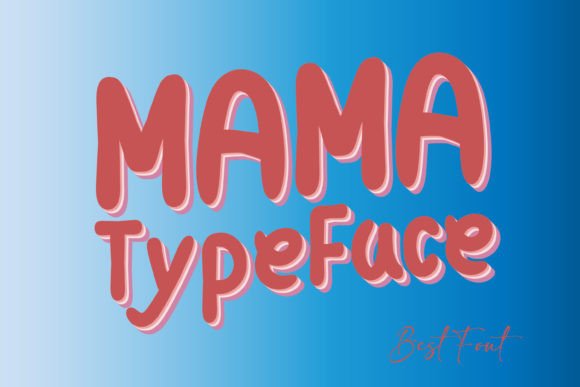
Mama Typeface Font: Add a Touch of Whimsy to Your Crafty Ideas
Mama Typeface Font is a fun and quirky handwritten font that can add a touch of personality to your crafty ideas. In this article, we’ll take a closer look at the Mama Typeface Font, its features, and how you can use it to elevate your creative projects.
What is Mama Typeface Font?
Mama Typeface Font is a handwritten font designed to bring a sense of playfulness and whimsy to your designs. It’s perfect for crafty projects, DIY tutorials, and any creative endeavor that requires a personal touch. The font’s quirky and irregular shapes give it a unique charm that sets it apart from more traditional fonts.
Features of Mama Typeface Font
Mama Typeface Font comes with a range of features that make it a versatile and user-friendly font. Some of its key features include:
- Handwritten style: Mama Typeface Font has a genuine handwritten look that’s perfect for adding a personal touch to your designs.
- Quirky and irregular shapes: The font’s irregular shapes and quirky style give it a unique charm that’s sure to grab attention.
- Easy to read: Despite its playful style, Mama Typeface Font is easy to read and understand, making it perfect for use in a variety of creative projects.
How to Use Mama Typeface Font
Mama Typeface Font is easy to use and can be incorporated into a variety of creative projects. Here are some ideas to get you started:
- Crafting tutorials: Use Mama Typeface Font to add a personal touch to your crafting tutorials, DIY guides, and handmade product labels.
- Social media graphics: Add a touch of whimsy to your social media graphics, including Facebook posts, Instagram stories, and Pinterest pins.
- Stationery and invitations: Use Mama Typeface Font to create playful and eye-catching stationery, invitations, and greeting cards.
- Branding and packaging: Incorporate Mama Typeface Font into your branding and packaging designs to give them a unique and playful touch.
Tips for Using Mama Typeface Font
Here are some tips for getting the most out of Mama Typeface Font:
- Use it sparingly: Mama Typeface Font is a bold and playful font, so use it sparingly to avoid overwhelming your designs.
- Pair it with other fonts: Experiment with pairing Mama Typeface Font with other fonts to create a unique and eye-catching combination.
- Adjust the size and color: Play around with the size and color of Mama Typeface Font to create visual interest and hierarchy in your designs.
- Experiment with different effects: Try adding different effects, such as texture or shadow, to give Mama Typeface Font a unique look.
Mama Typeface Font is a fun and quirky handwritten font that’s perfect for adding a touch of personality to your crafty ideas. With its unique features, ease of use, and versatility, it’s a great addition to any creative project. Whether you’re a crafter, DIY enthusiast, or graphic designer, Mama Typeface Font is sure to inspire your creativity and bring a smile to your face.
- What is Mama Typeface Font? Mama Typeface Font is a handwritten font designed to bring a sense of playfulness and whimsy to your designs.